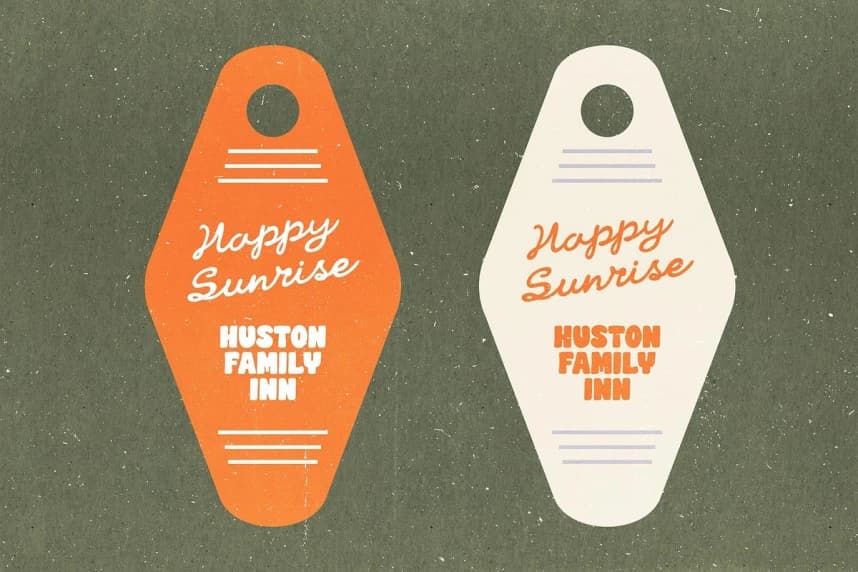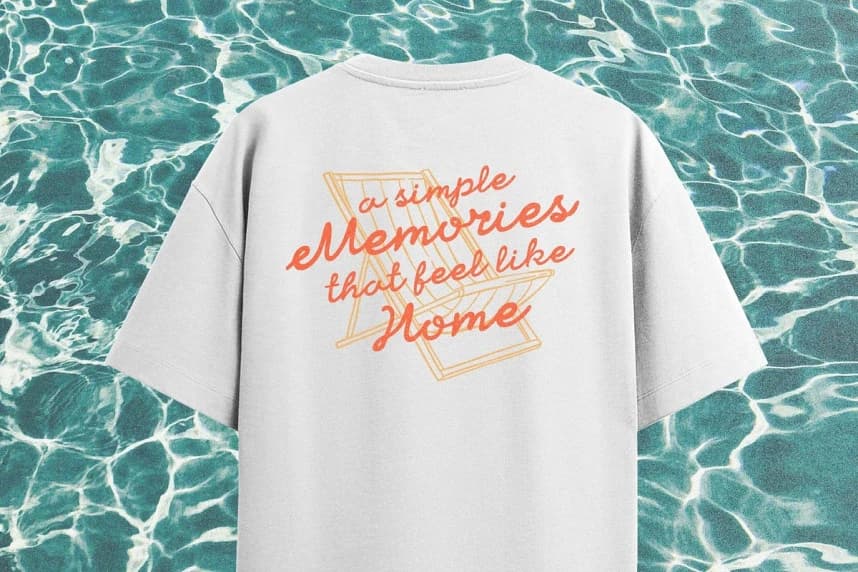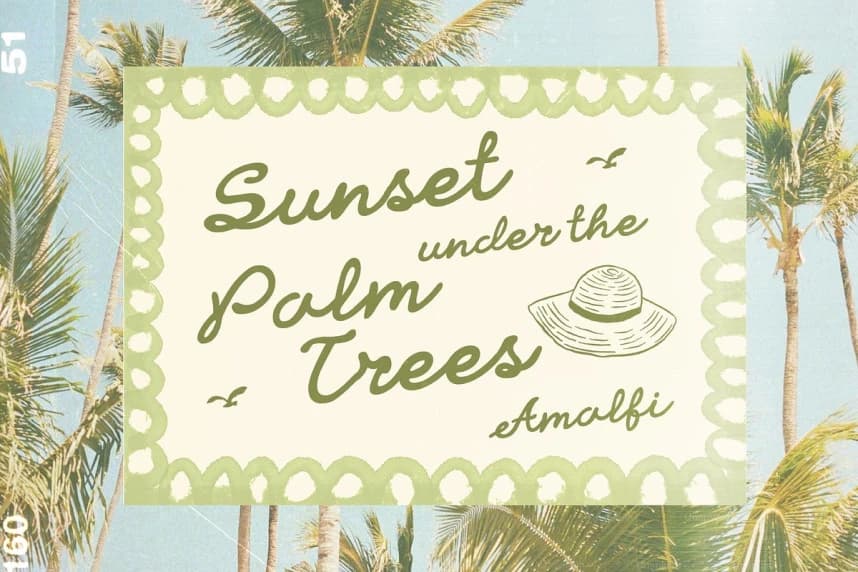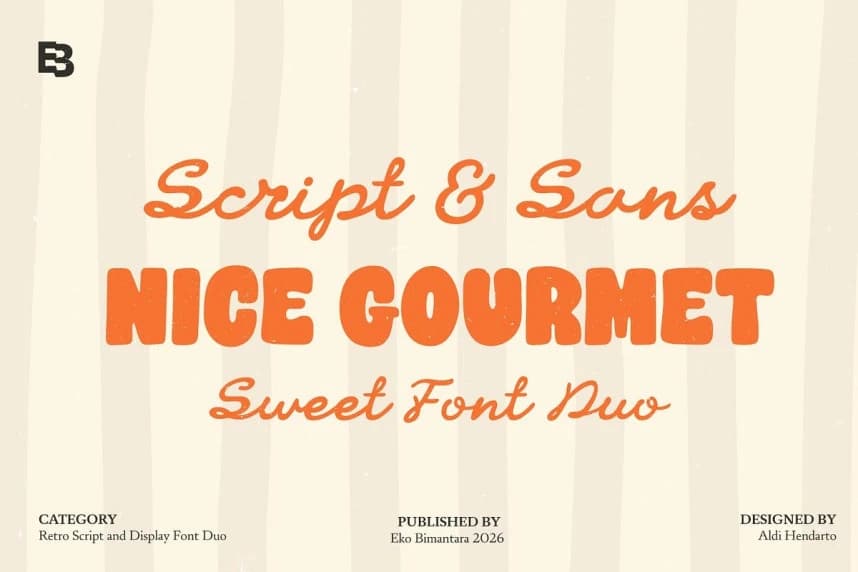
Nice Gourmet Script Font is a charming font duo that blends a smooth handwritten script with a bold, rounded sans serif, creating a perfect balance between elegance and playfulness. The script style delivers a sweet, friendly, and personal touch